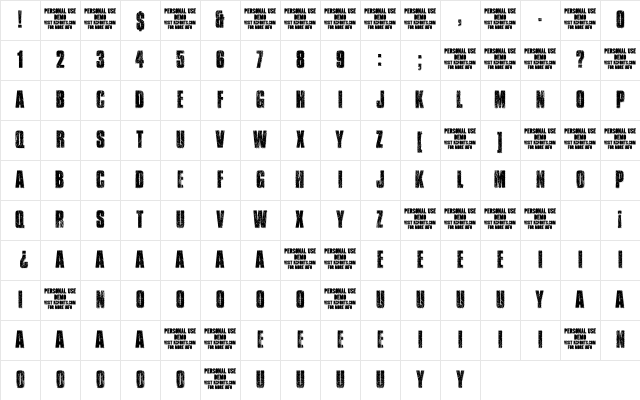
Transit Display is built around its visual character rather than neutral utility - its distinctive forms are designed to make an impression at display sizes.
Font Pairing: Pair with a clean neutral sans-serif for body copy to let Transit Display's character lead without overwhelming the composition.
Pro Tip: Use Transit Display exclusively at display sizes - it was designed to be seen, not read at length. Let a neutral companion handle body copy.